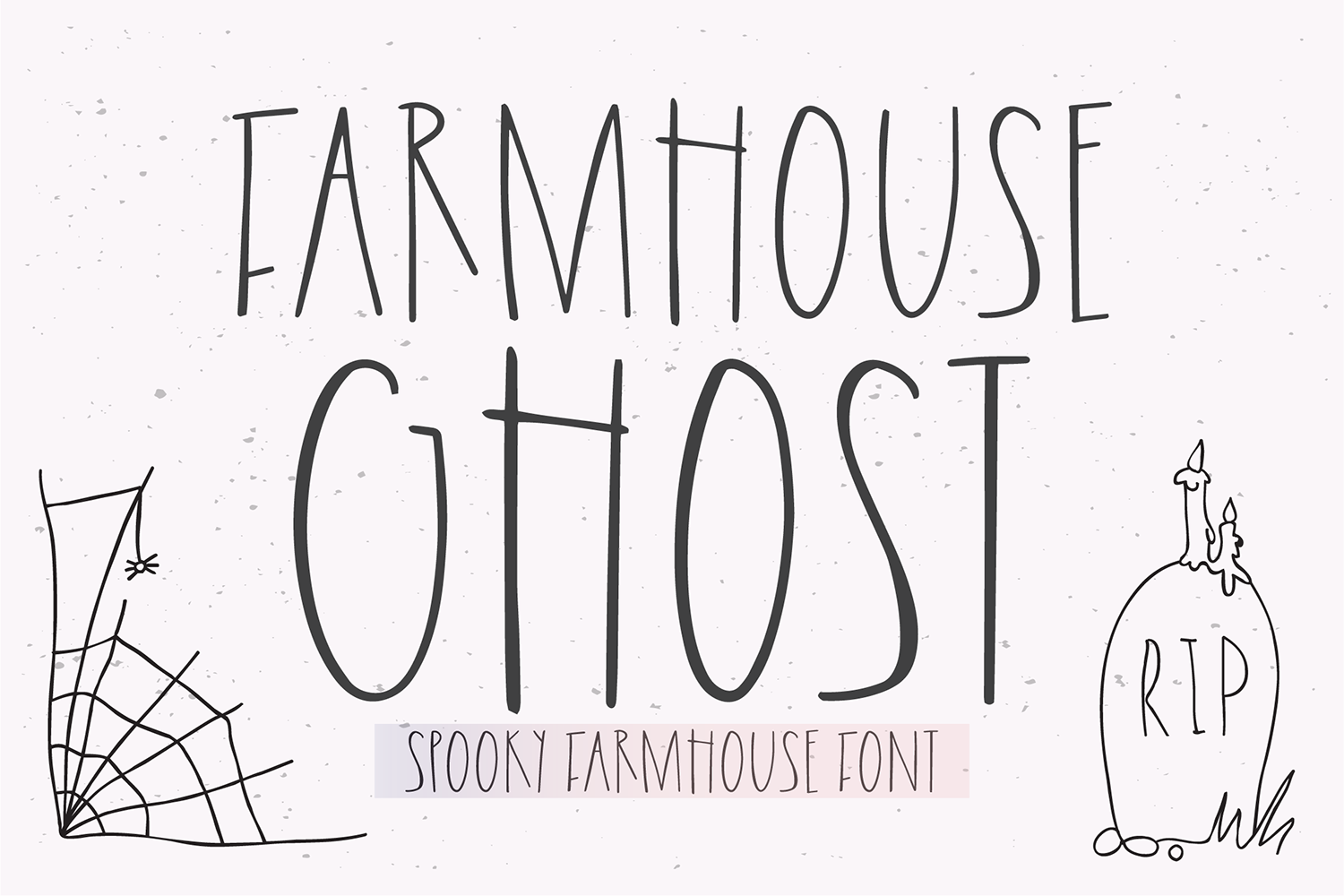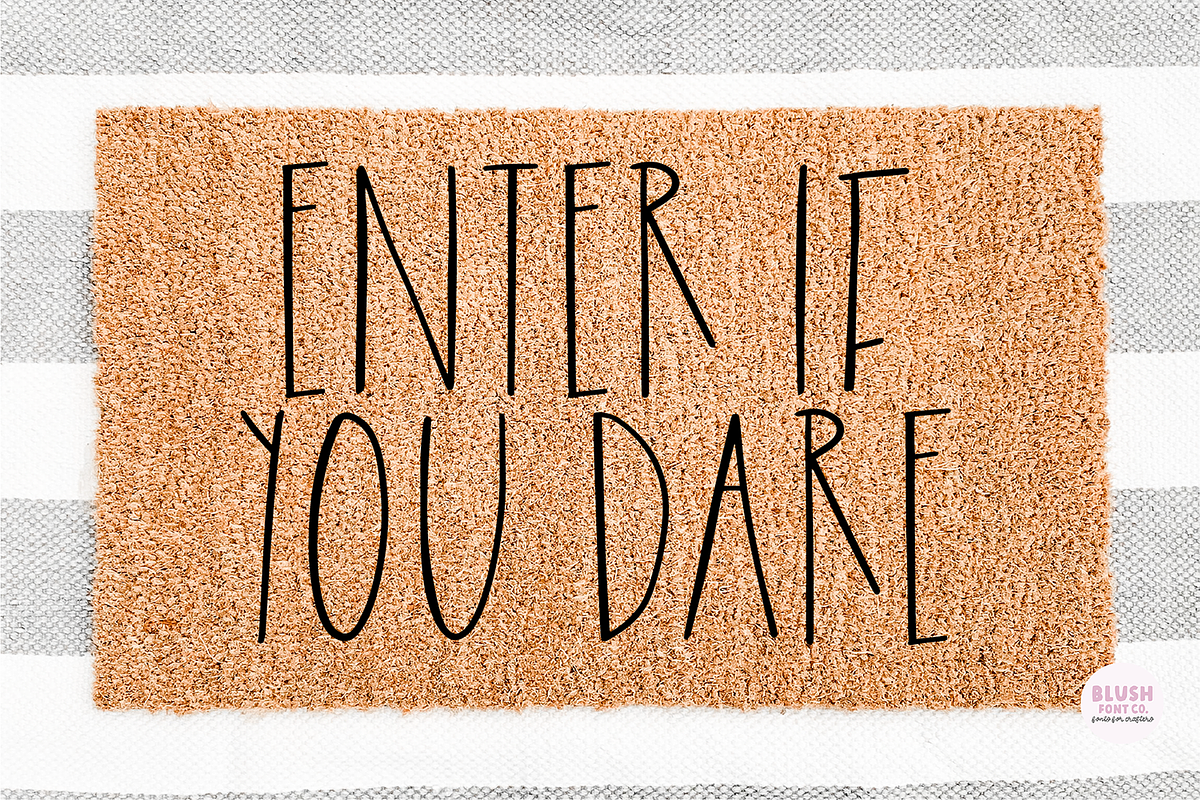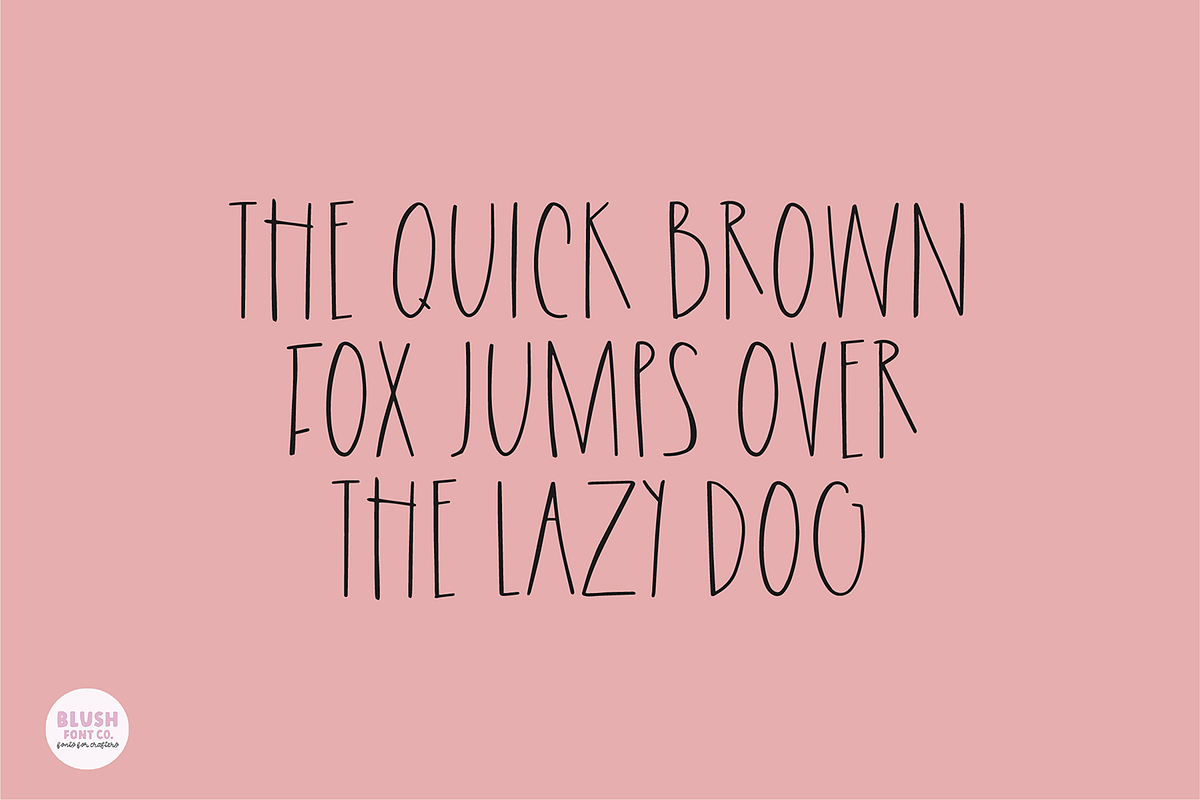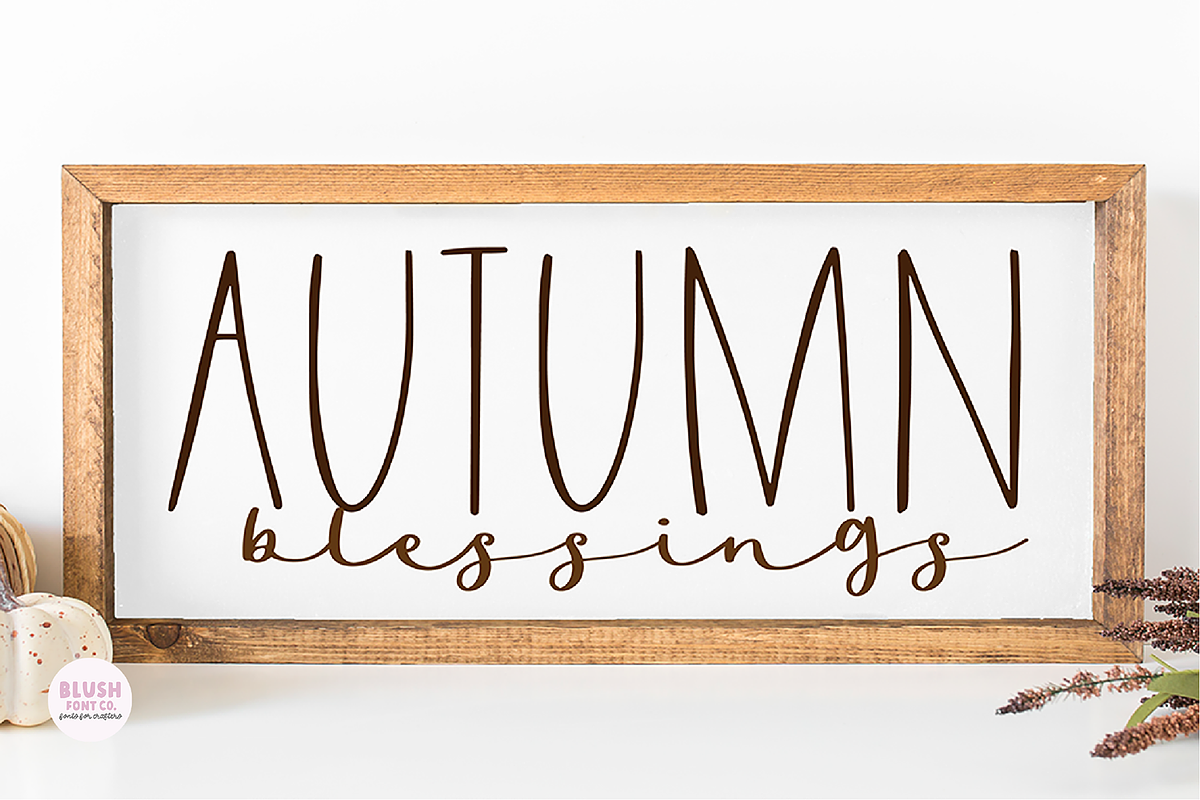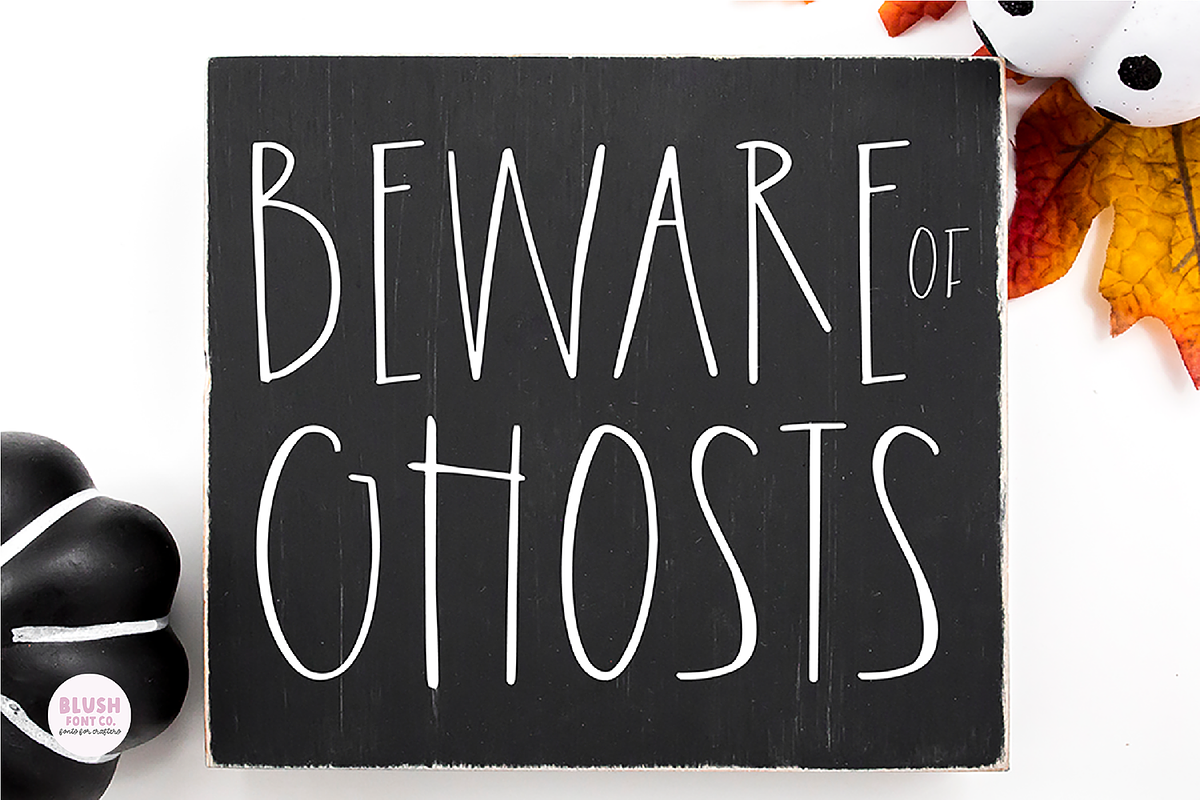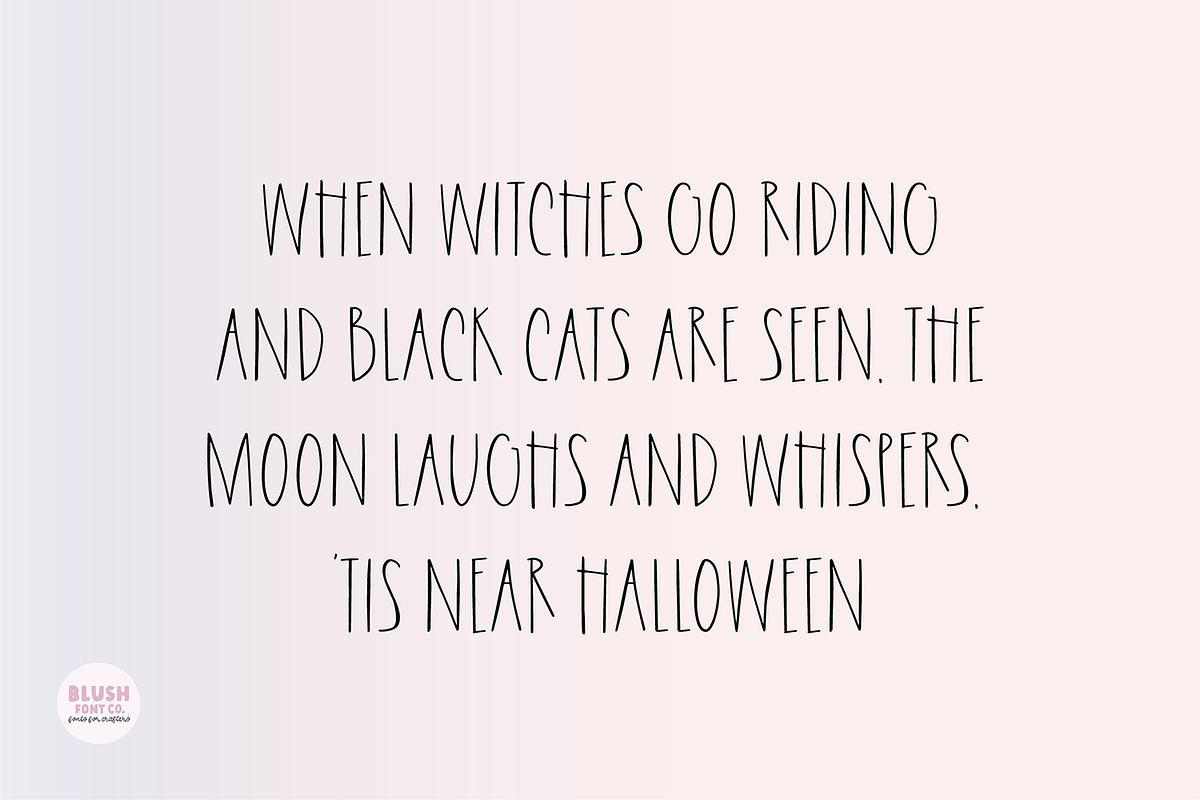
FARMHOUSE GHOST Halloween Font
"Farmhouse Ghost"
A spooky Halloween farmhouse font.
This font comes with all caps letters, numbers, and basic punctuation.